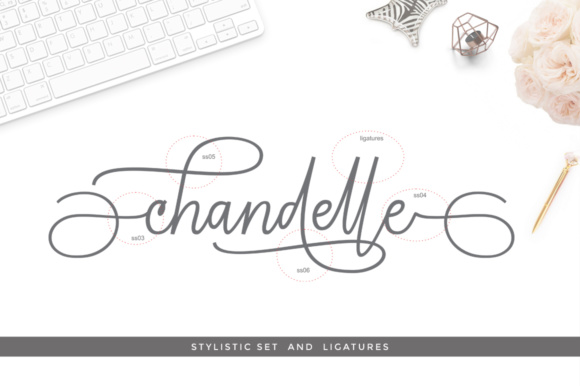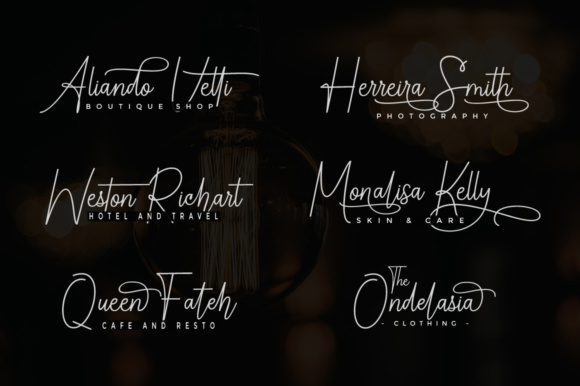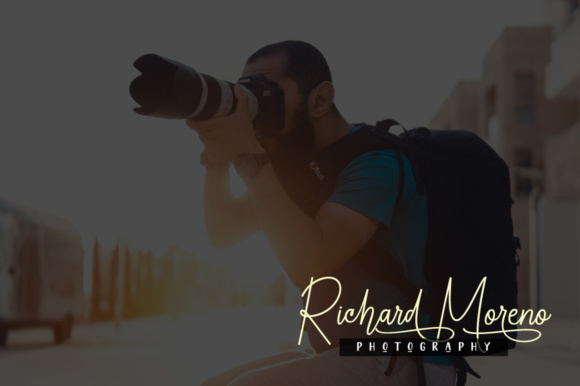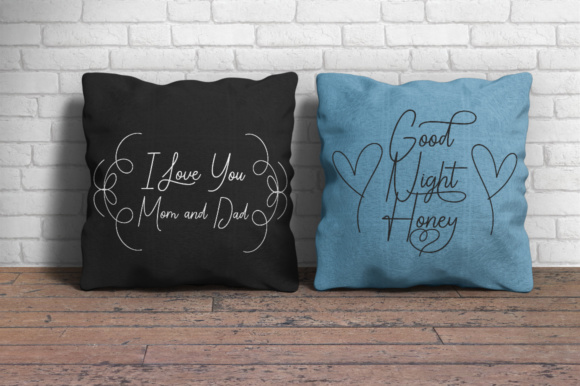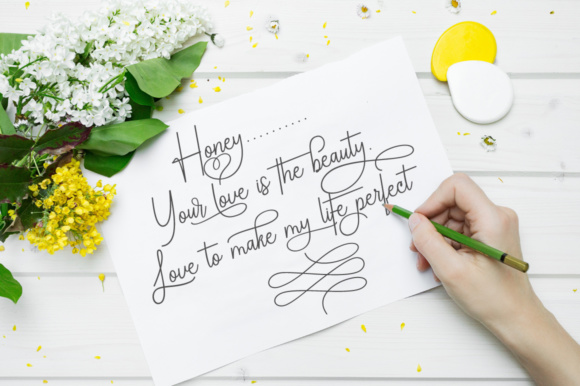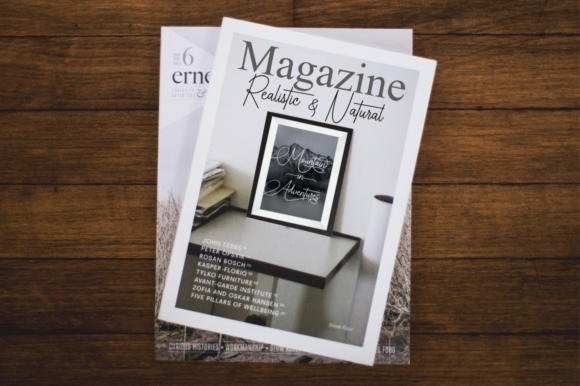
The Chandelle Font: A Stylish Signature Script for Creative Projects
Have you ever been working on a design project, and suddenly, you’re stuck on finding the perfect font? I recall a recent experience where I was designing a logo for a client’s boutique business, and I just couldn’t find a script font that felt elegant, yet approachable. That’s when I stumbled upon the Chandelle font, and it instantly became my go-to choice. In this article, I’ll share my love for this beautiful handwritten signature script and provide a comprehensive guide on how to make the most of its features.
An Honest Review of Chandelle Font
- ✨ Natural and stylish flow: The Chandelle font has a beautiful, organic feel that makes it perfect for creating visually appealing designs.
- ✅ Diverse set of alternates: With a wide range of alternates, you can experiment with different variations to find the perfect fit for your project.
- 💫 Perfect for signatures and stationery: The Chandelle font shines when used for signatures, stationery, and other formal documents.
While the Chandelle font is an excellent choice, there are a few minor quirks to be aware of:
- 🤔 Some characters may require manual kerning: Depending on the specific use case, you might need to adjust the kerning to achieve optimal results.
- ⚠️ Not suitable for body text: Due to its elegant, cursive nature, the Chandelle font is best used for headlines, titles, or signatures, rather than body text.
The Backstory of Chandelle Font
The Chandelle font was designed with the intention of creating a beautiful, elegant script that could be used for a wide range of creative projects. The designer aimed to craft a font that felt both natural and stylish, with a diverse set of alternates to keep designs fresh and exciting.
Q: What type of projects is Chandelle font best suited for?
A: The Chandelle font is perfect for signatures, stationery, logos, typography quotes, magazines or book covers, website headers, and more.
Q: Can I use Chandelle font for my branding and identity design?
A: Absolutely! The Chandelle font is an excellent choice for branding and identity design, especially for businesses that want to convey elegance and sophistication.